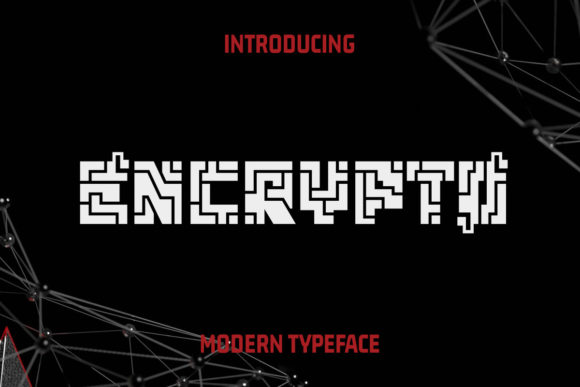
Introducing Encrypto Font, the modern display font that commands attention and leaves a lasting impression. With its uniquely shaped letters and imposing presence, Encrypto is the perfect choice for your creative projects that demand a touch of distinction.
Encrypto's captivating design elevates your posters to new heights, transforming them from ordinary to extraordinary. The font's distinct character effortlessly matches the vibrant energy of posters, capturing the viewer's eye and igniting their imagination. Whether you're creating posters for music festivals, art exhibitions, or corporate events, Encrypto ensures that your message shines through with unmatched impact.
Unleash your creativity and harness the power of Encrypto to manifest your artistic vision into tangible masterpieces. Its versatility extends beyond posters, making it an ideal choice for logos, branding, headlines, and social media graphics. Encrypto's adaptability knows no bounds, allowing you to weave your creative magic across a wide spectrum of digital and print media.
With Encrypto, you unlock a world of endless possibilities. Its PUA encoding makes accessing all glyphs and swashes a breeze, empowering you to effortlessly add intricate details and flourishes to your designs. Express yourself with finesse and precision, as Encrypto provides you with the tools to craft captivating visuals that resonate with your audience.
Experience the transformative power of Encrypto and witness the impact it has on your creative endeavors. Embrace the boldness, the uniqueness, and the sheer brilliance of this modern display font. Design with passion, inspire with originality, and leave an indelible mark on the world with Encrypto Font.